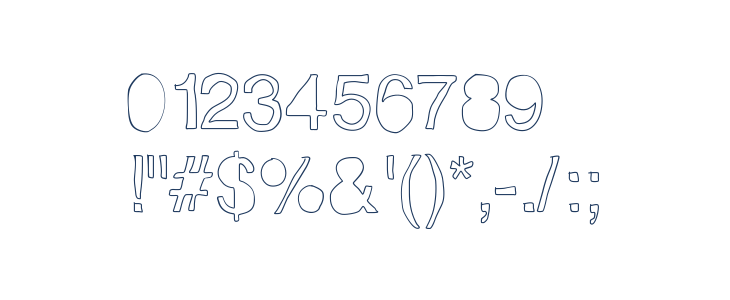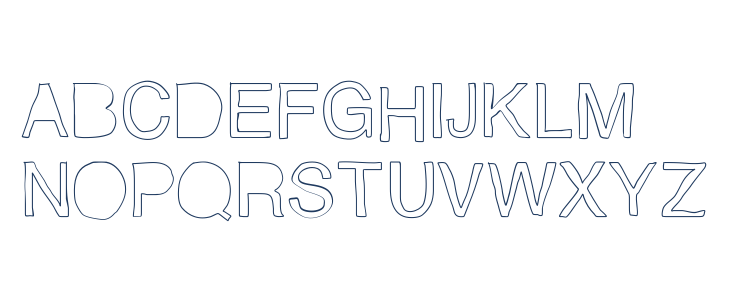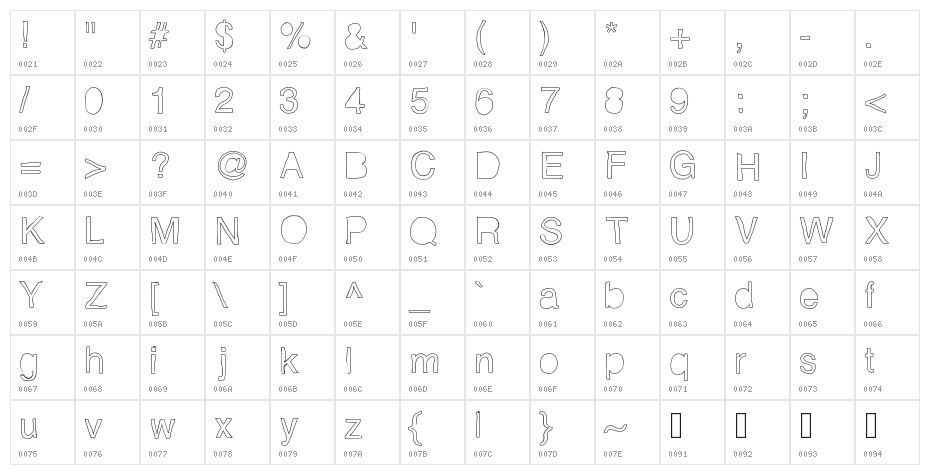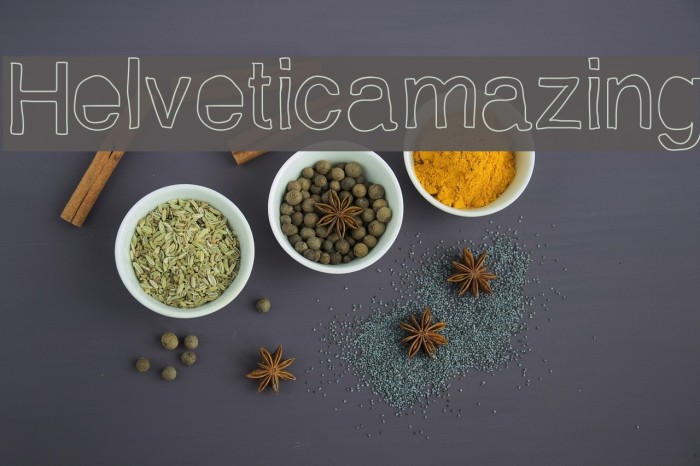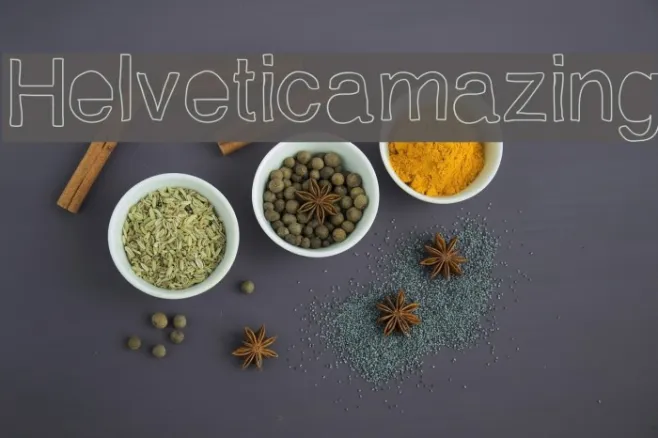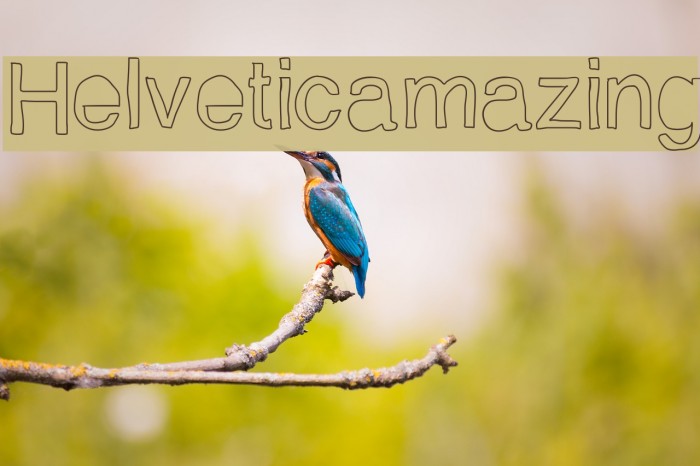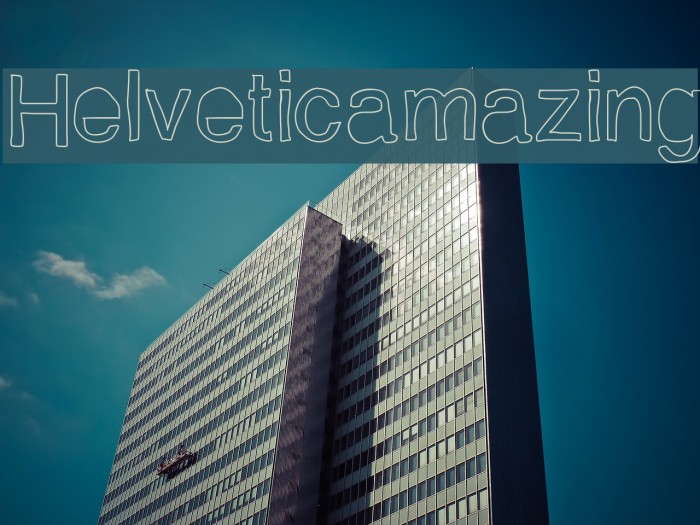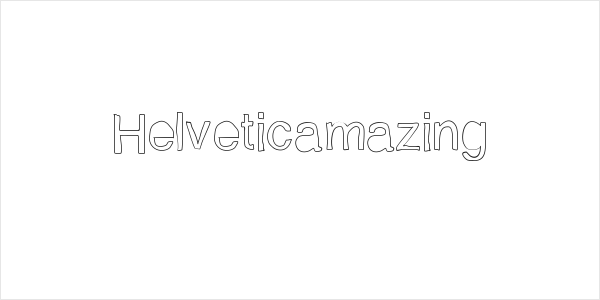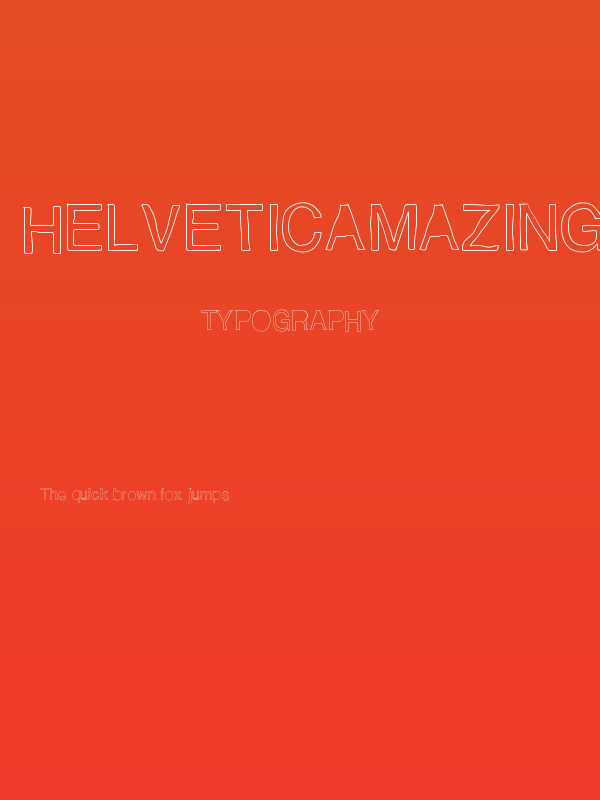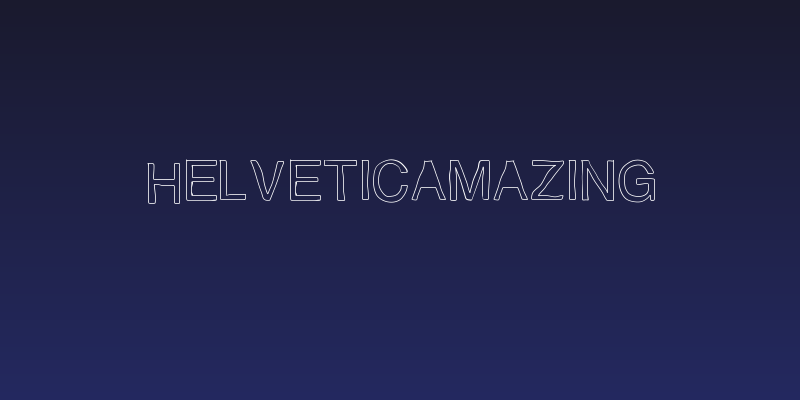
Helveticamazing Font
Helveticamazing Description
This font features a modern, outlined design with clean lines and a geometric structure. The uppercase and lowercase letters maintain a consistent width, providing a balanced and harmonious appearance. The numerals are clear and easily distinguishable, while the special characters complement the overall style. The font's simplicity and clarity make it versatile for various design applications, offering a contemporary and stylish look.
| Proposed Projects | Ideal for branding, posters, digital media, and modern design projects. |